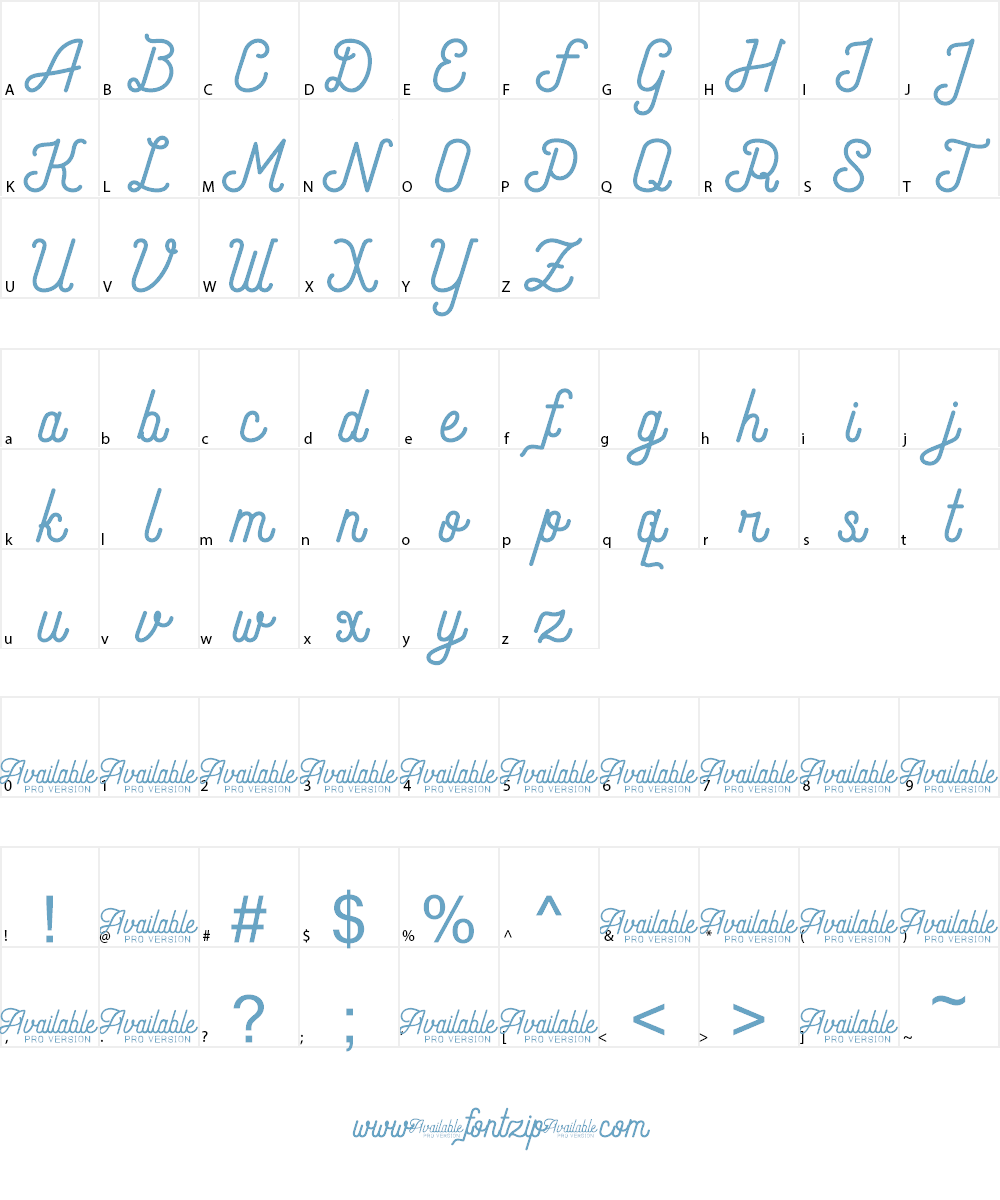
Andara is a manual lettering with type soft and sans, These two font script and sans is a great combination for any product and bussines. Andara comfortable for vintage design, classic design, photography, branding design and many more.
Andara Script Featured With :
- Basic Character and Multilingual Character
- Stylistic Sets
- Contextual Alternates
- Stylistic Alternates
- Swash Alternates
- Standart Ligatures
- Discretionary Ligatures
- Fractions
- Ornaments
- Initial and Terminal Forms
Andara Sans Featured With :
- Uppercase
- Small Caps
- Numeral